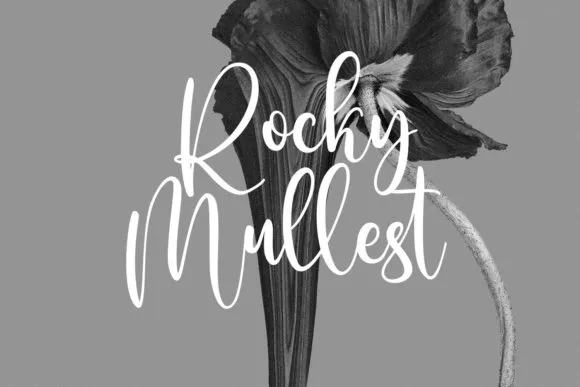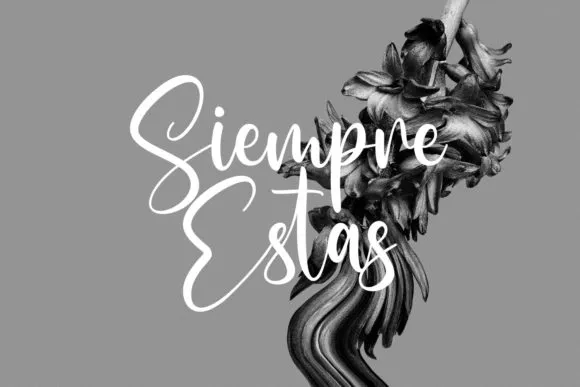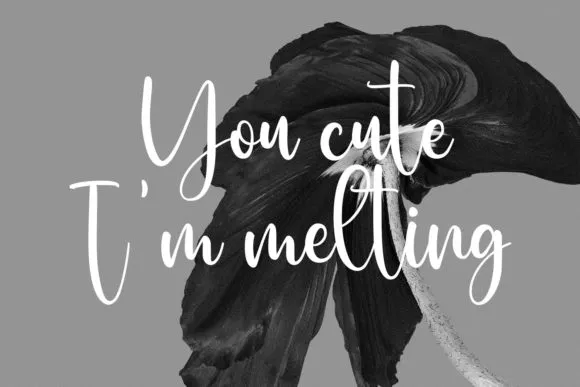
Free Sallutos Signature Font
Sallutos Signature Font is an easygoing mark script text style. With customary differentiation stroke, fun person with a touch of ligature and substitutes.
To give you extra inventive work. Sallutos textual style upholds multilingual more than 100+ dialects.
This textual style is great for logo plan, Web-based entertainment, Film Titles, Books Titles, short text even a long text letter, and really great for your optional text style with sans or serif. Make a staggering work with Sallutos Signature Font.